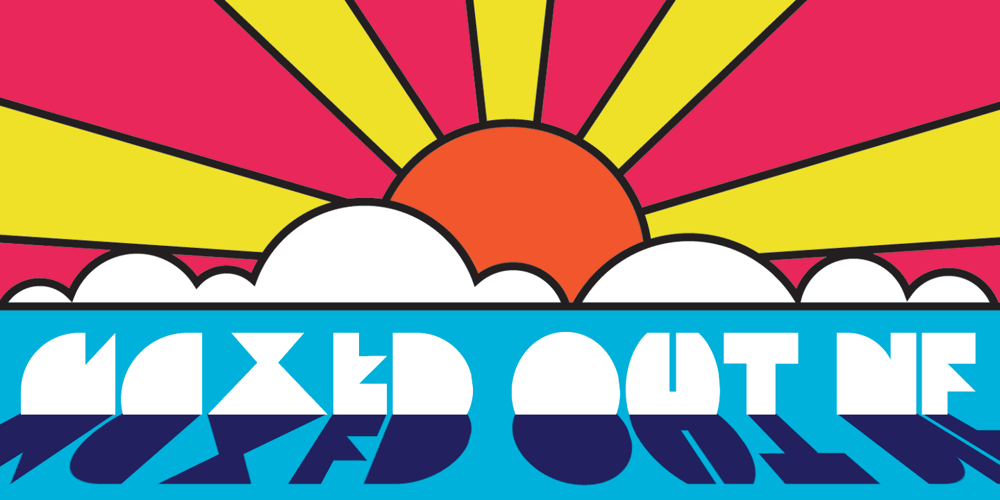
Maxed Out NF
Maxed Out NF font
Maxed Out NF Font Family was designed by Nick Curtis, Peter Max and published by Nick’s Fonts. Maxed Out NF contains 3 styles and family package options. This family of faces is based on the series Riverside Drive, designed by Peter Max for Photo-Lettering Inc. in the early 1970s. However, several letters have been altered to maintain design consistency and to improve legibility. Both versions of this font support the Latin 1252, Central European 1250, Turkish 1254 and Baltic 1257 codepages.